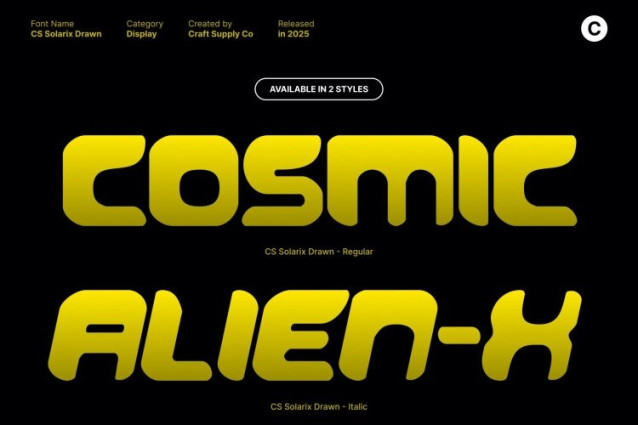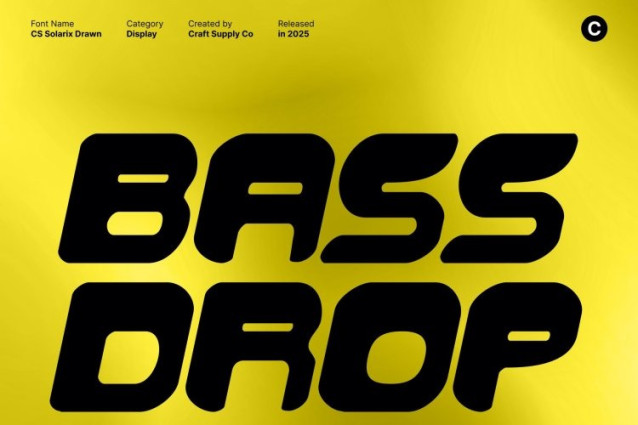
CS Solarix Drawn Font This is a modern display font built around a forward-looking vision. Clean, sleek lines and inventive letterforms define its futuristic character, while the drawn effect introduces subtle irregularities that give each character a natural, human touch. This fusion of precision and texture creates a typeface that feels advanced yet organic.
Minimalist Structure with Dynamic Flow
Balancing minimalist clarity with visual energy, this font combines sharp angles and smooth curves in a harmonious rhythm. The drawn texture softens its geometric structure, adding warmth and expressive nuance without sacrificing its sleek, high-tech identity. The result is a font that feels elegant, fast, and confidently modern.
Bold Elegance for High-Tech Expression
Despite its refined minimalism, this font delivers strong visual impact. Its futuristic geometry and handcrafted details make it ideal for high-impact headlines, branding systems, UI elements, and experimental layouts. The font communicates sophistication, innovation, and creative confidence in every composition.
Perfect for Progressive and Tech-Inspired Design
From tech branding and digital media to editorial layouts and futuristic visuals, this font brings a distinctive, forward-moving identity. The combination of clean design and drawn character ensures your typography feels both cutting-edge and uniquely expressive perfect for projects that embrace progress, originality, and modern style.